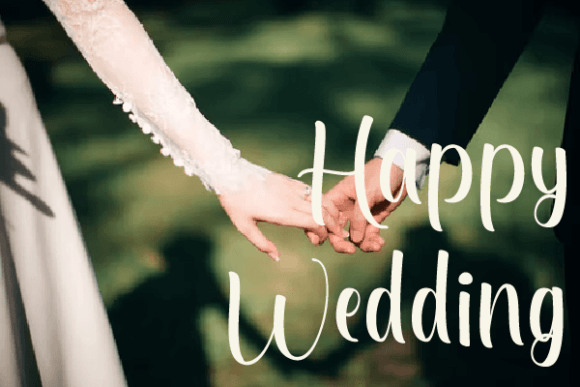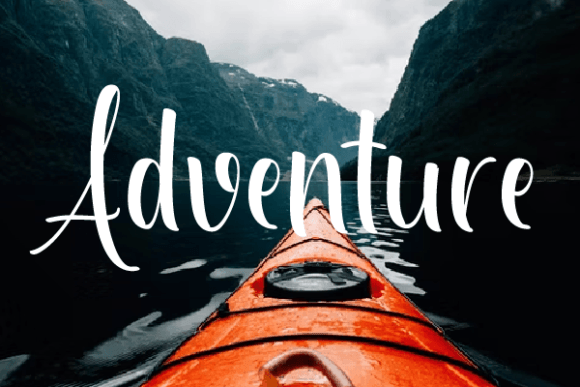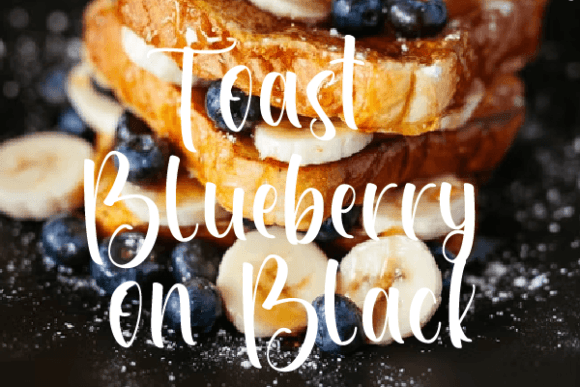
About Zaniyah Font
“Zaniyah” is a contemporary handwritten font that brings a modern and stylish touch to a wide range of creative projects. Its versatile design makes it an ideal choice for various applications, including wall displays, wedding invitations, social media posts, logos, advertisements, product packaging, product designs, labels, photography, watermarks, invitations, stationery, and any other project that benefits from a personalized, handwritten touch.
This font’s modern and chic appearance adds a sense of sophistication and creativity to your designs. Its fluid strokes and natural letterforms create an effortless and visually appealing aesthetic, making it suitable for both digital and print applications. Whether you’re designing for online platforms or physical products, “Zaniyah” ensures that your content looks contemporary and polished.
The appeal of “Zaniyah” lies in its ability to convey a sense of warmth and authenticity. Handwritten fonts like “Zaniyah” establish a personal connection with the audience, making it perfect for invitations, stationery, and social media posts. Its casual yet elegant look adds a touch of personality, allowing you to communicate your message in a genuine and approachable manner.
Moreover, “Zaniyah” is versatile enough to be used for branding and marketing materials. Its clean and modern appearance ensures that your logos, advertisements, and product packaging radiate professionalism and creativity, leaving a memorable impression on viewers and customers alike.
By incorporating “Zaniyah” into your projects, you’re infusing your designs with a contemporary, handwritten charm. Its adaptability and stylish appeal enhance the overall visual appeal and impact of your creative endeavors. Whether you’re a graphic designer, a business owner, or an individual working on personal projects, “Zaniyah” provides you with a fashionable and sophisticated font choice to elevate your ideas and create visually stunning outcomes.